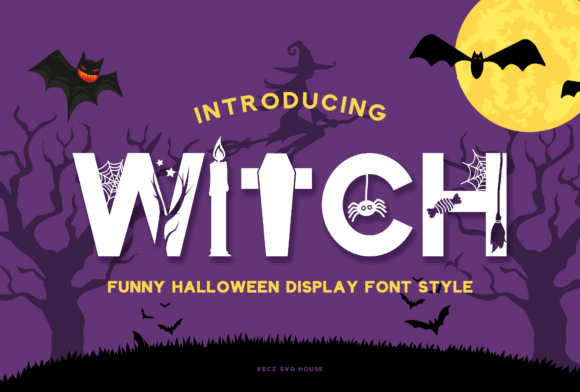
Dive into a realm of enchantment with the Halloween Witch Display Font, an enchanting typeface that will cast a magical spell on your design projects. This bewitching font is the perfect spellbinding tool for all your Halloween-themed creations.
Crafted with precision, this font boasts whimsical witch hat and broomstick accents adorning select characters, adding a touch of whimsy and thematic consistency to your text. It's the ideal choice for Halloween-themed projects, from party invitations and posters to spooky signage and haunted house flyers.
Experience the atmospheric aura that the Halloween Witch font evokes, transporting viewers to a world of enchantment and sorcery. Its unique and captivating style adds a distinctive touch to any design project.
Embrace the mystique of witches, spells, and the supernatural, letting your creativity soar this Halloween season. Unleash the enchantment and bring your designs to life with this captivating typeface.
The Halloween Witch Display Font is the ultimate tool for creating spellbinding Halloween designs that will leave a lasting impression. Don't let this enchanting opportunity pass you by, seize the magic and let your creativity take flight!